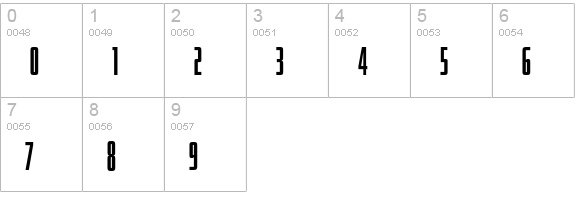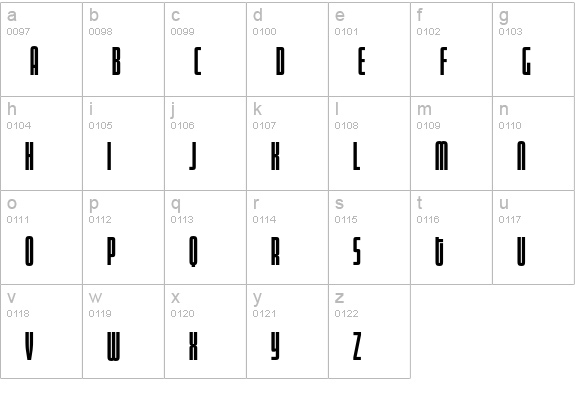
MorganTw1 Font Details
Introducing MorganTw1, a sleek and stylish font that exudes elegance and sophistication. With its clean lines and modern aesthetic, MorganTw1 is perfect for a wide range of design projects, from branding to editorial design. The versatility of this font makes it a must-have for any designer looking to make a statement. What sets MorganTw1 apart is not only its striking appearance, but also the fact that it is available for free download at FontsMarket.com. That's right - this high-quality font can be yours at no cost, allowing you to elevate your designs without breaking the bank. Don't miss out on the opportunity to add MorganTw1 to your font collection and take your projects to the next level. Download it today and let your creativity soar!